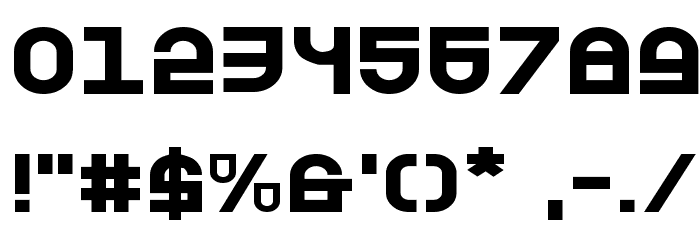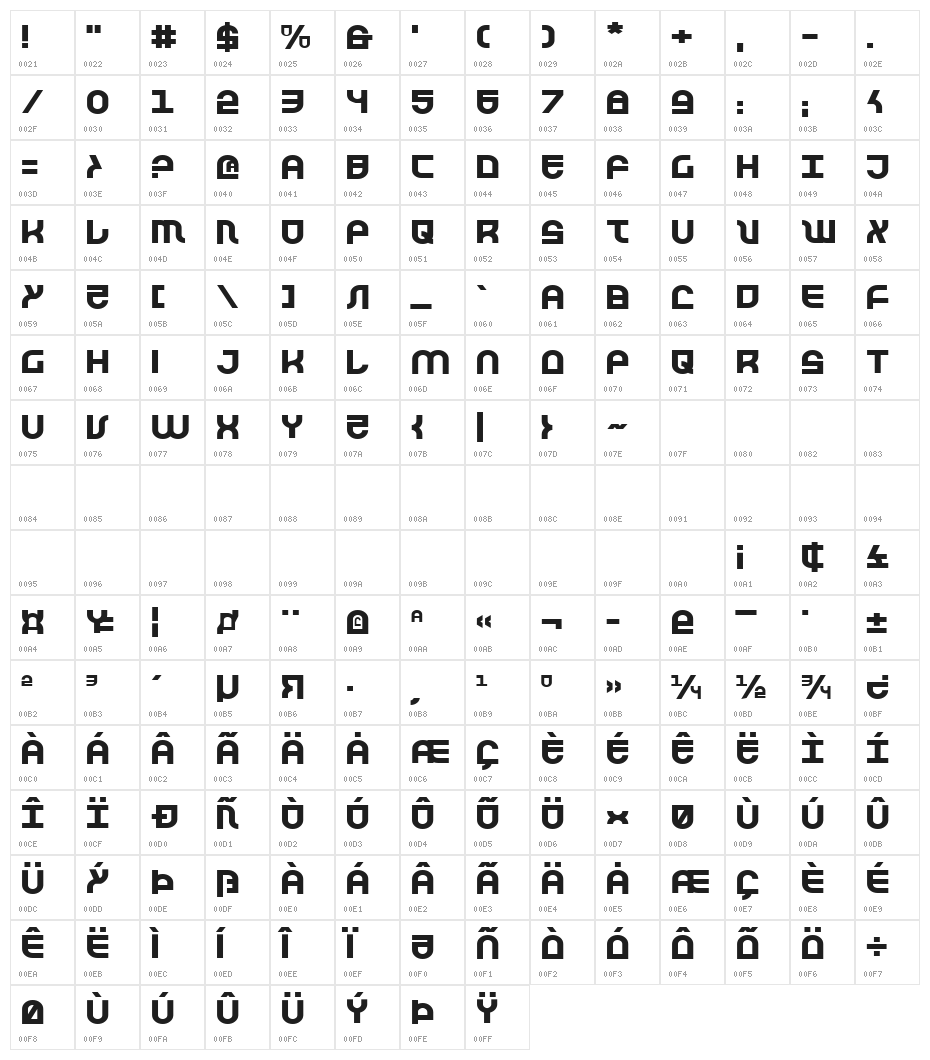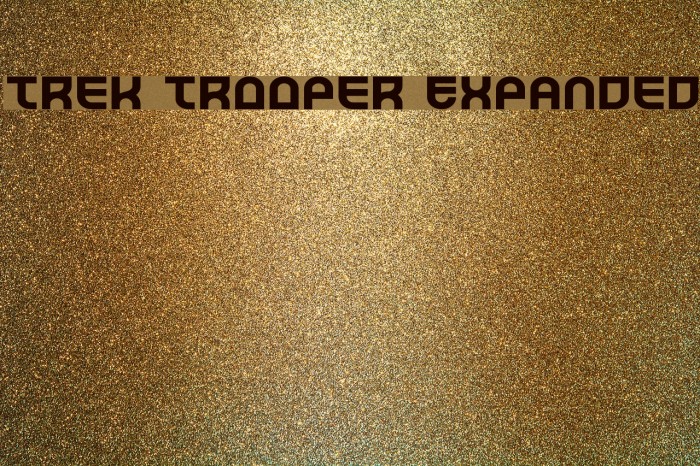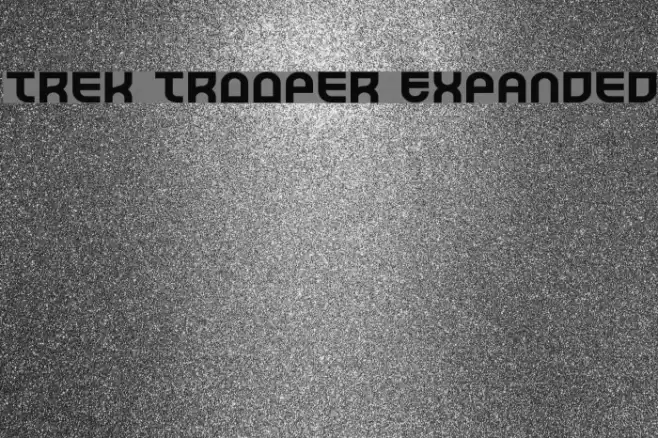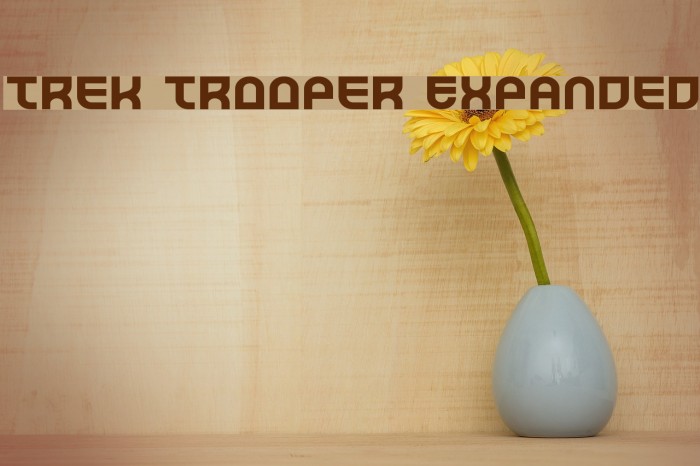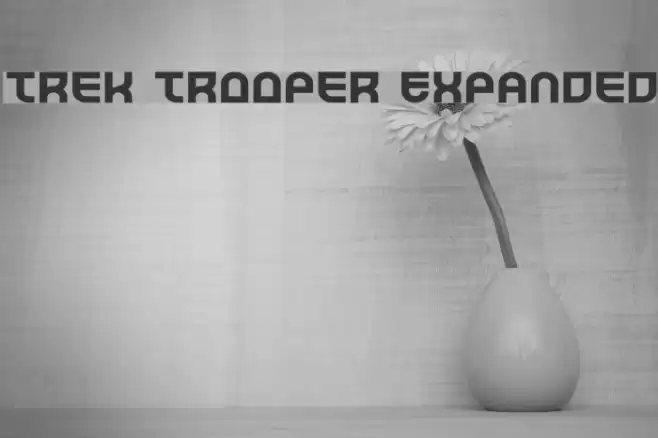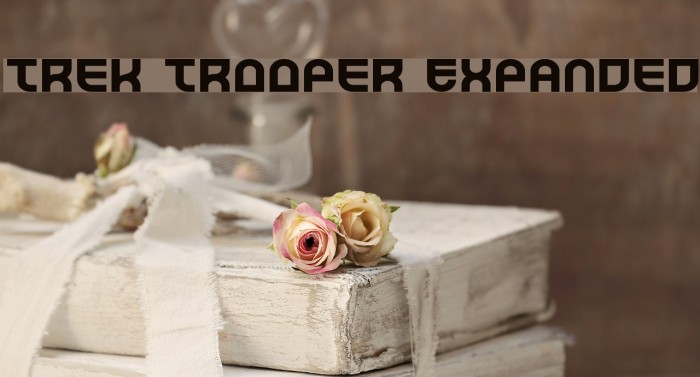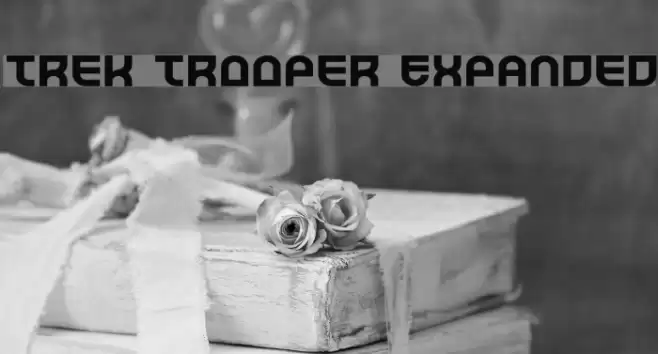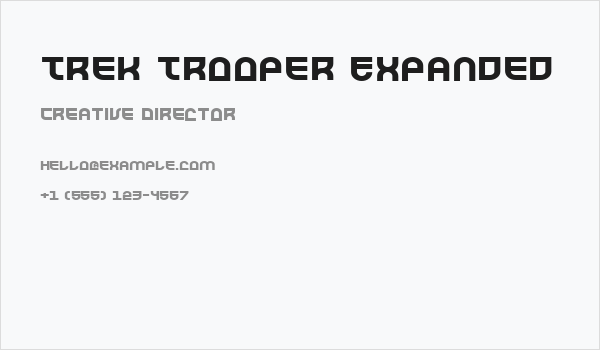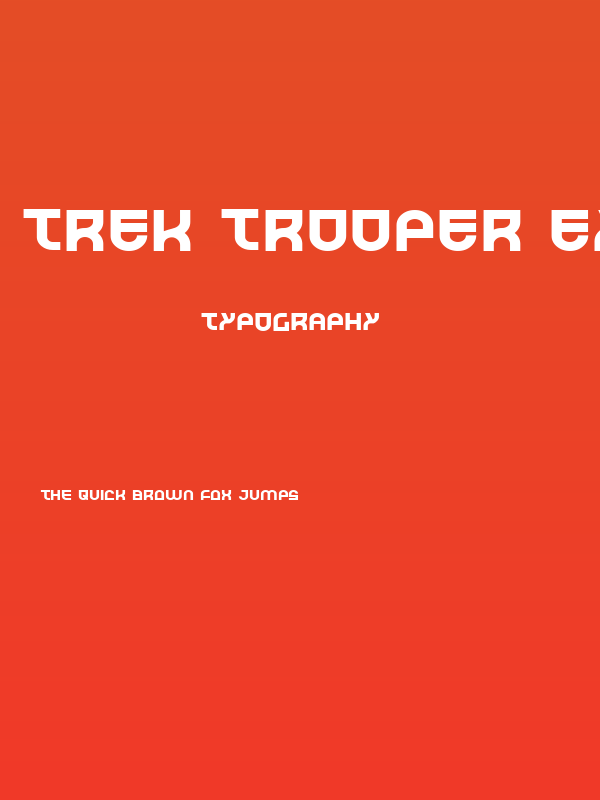
Trek Trooper Expanded Font
Trek Trooper Expanded Description
This font features a bold, futuristic design with a distinct geometric structure. The characters are crafted with a combination of sharp angles and smooth curves, giving it a unique and modern appearance. The uppercase letters are particularly striking, with a strong presence and a sense of movement. The lowercase letters maintain the same geometric style, ensuring consistency across the typeface. Numbers and special characters are designed to match the boldness and style of the alphabet, making this font versatile for various applications. Its expanded width and tight character spacing contribute to its impactful and dynamic look.